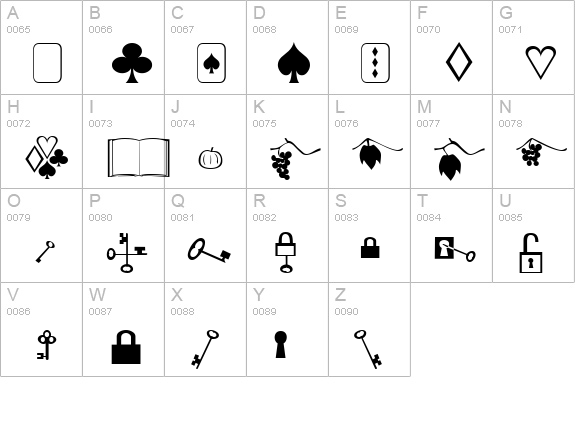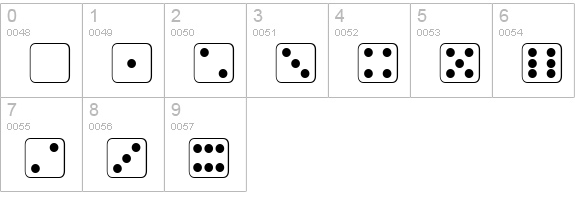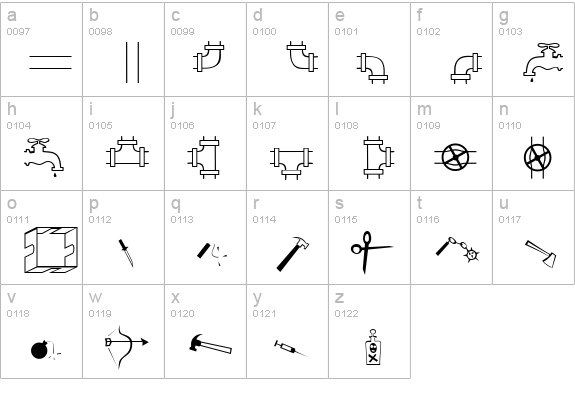
XMMDrawings Font Details
XMMDrawings font is a stunning display typeface that exudes creativity and artistic flair. With its hand-drawn aesthetic and unique design elements, this font is perfect for adding a touch of whimsy to your projects. The playful curves and intricate details of XMMDrawings make it a versatile choice for a variety of design applications, from posters to packaging to social media graphics. The best part? XMMDrawings font is completely free to download at FontsMarket.com. Whether you're a seasoned designer looking to add a fresh new font to your collection or a newcomer eager to experiment with different typefaces, XMMDrawings is sure to inspire and delight. Download it today and let your creativity shine with this charming and expressive font.